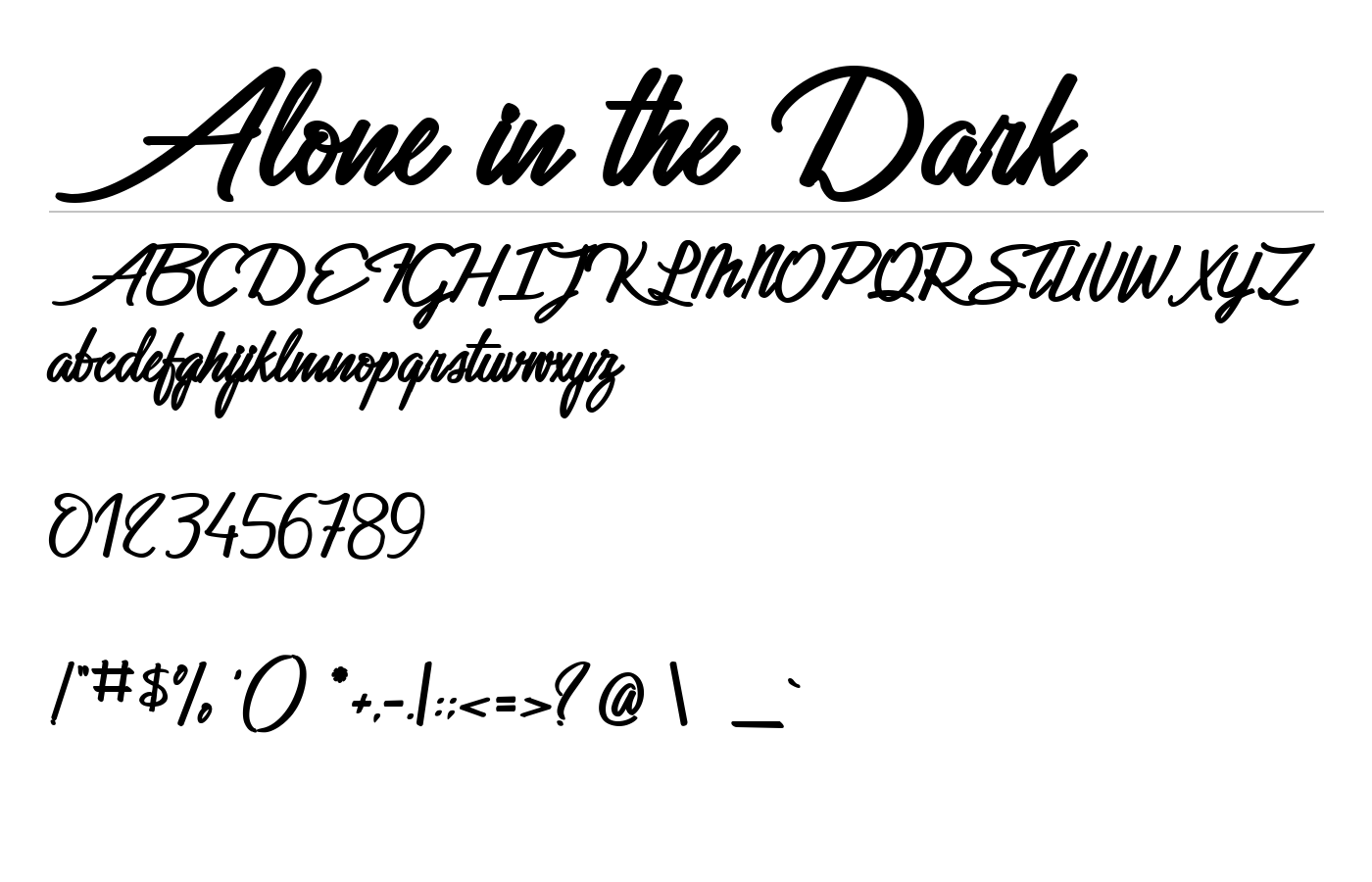
Alone in the Dark is a stylish script font with a flowing, hand-lettered feel that combines elegance with a casual charm. Its moderate weight and smooth, slightly condensed letterforms make it perfect for adding a personal, artistic touch to logos, invitations, or branding that seeks a warm and approachable yet refined look. This font works well in headlines and decorative text where a unique, expressive personality is desired.
Alone in the Dark Font
About Alone in the Dark Font
| Designer | Octotype |